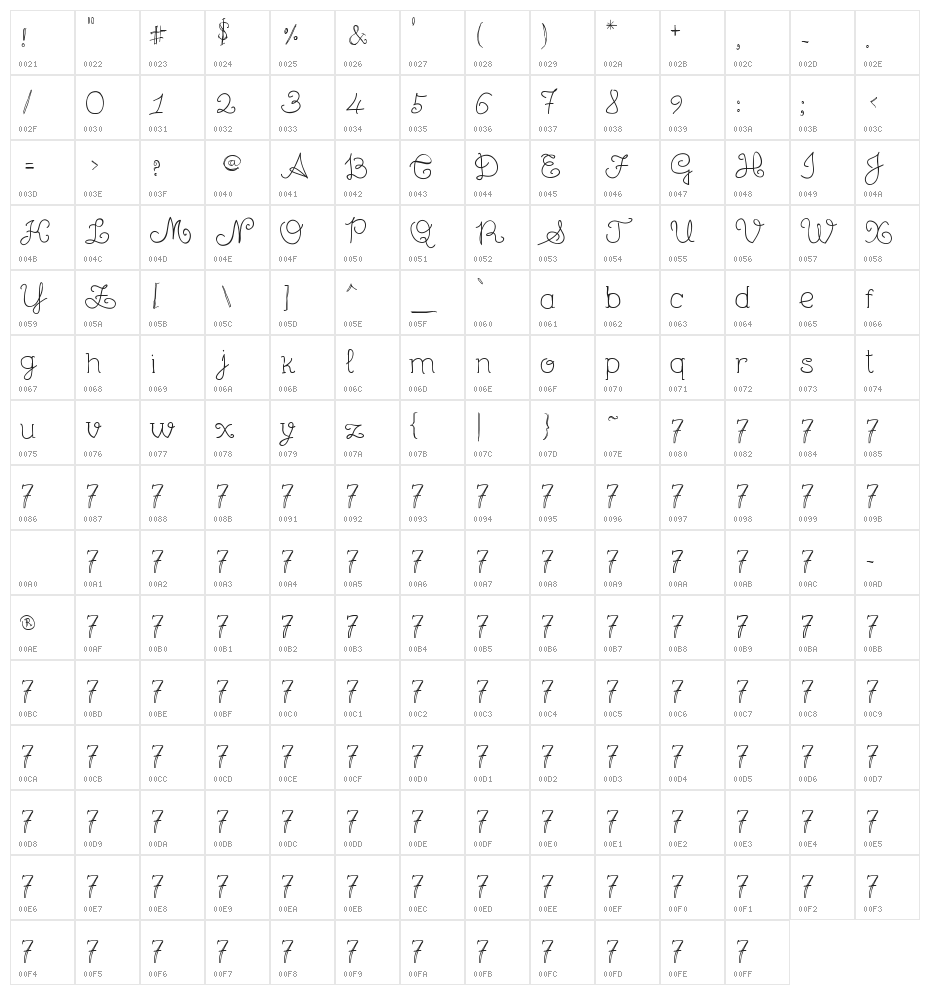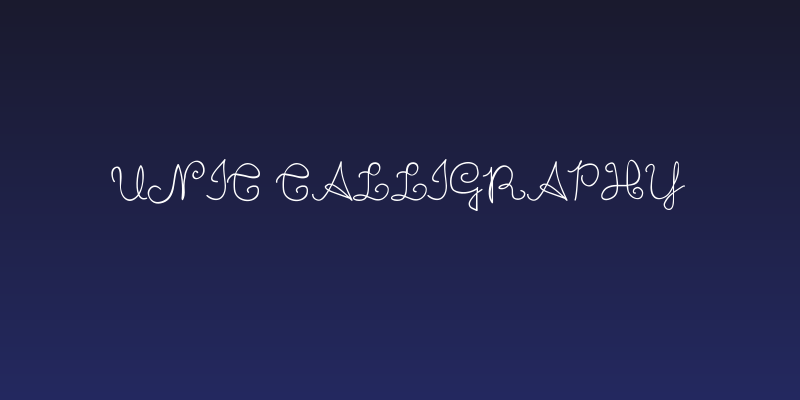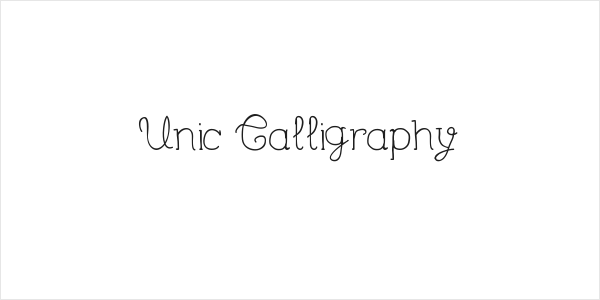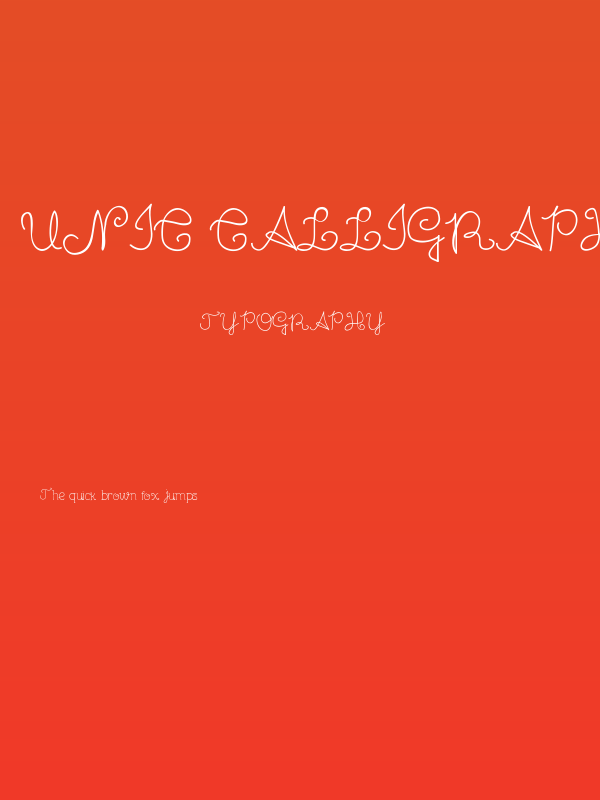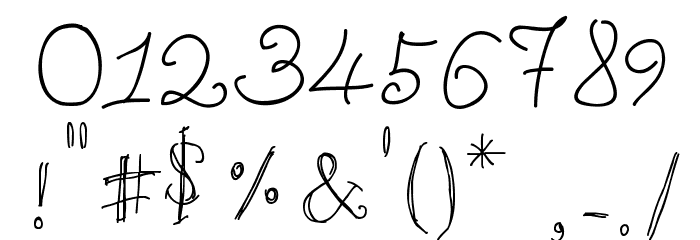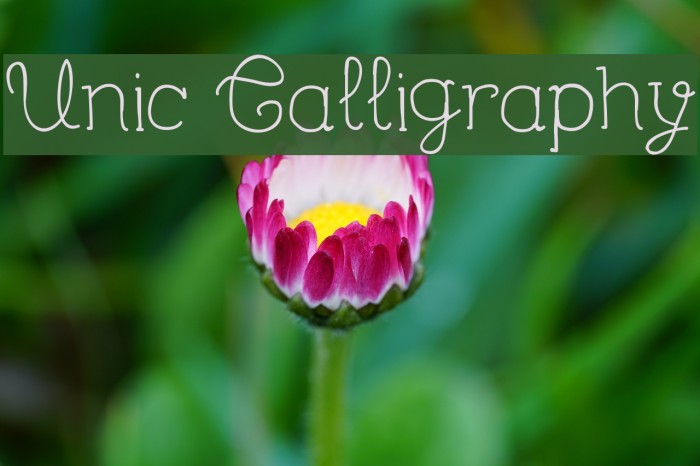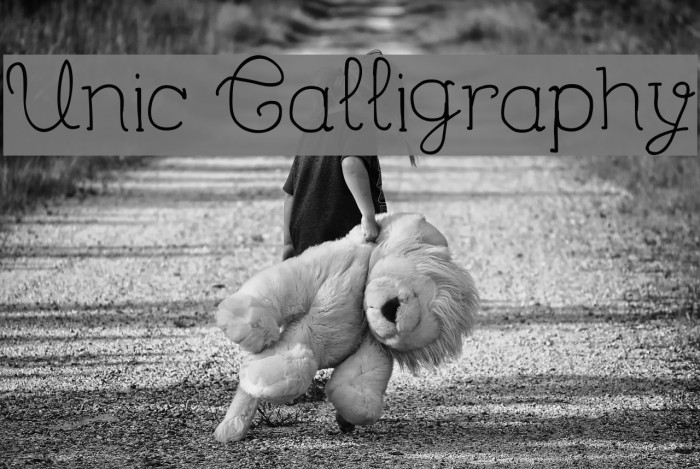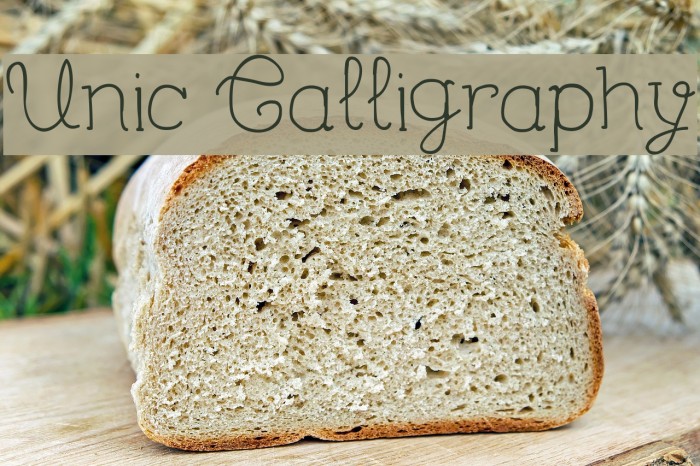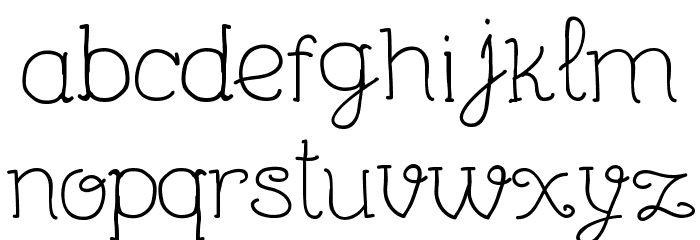
Unic Calligraphy Font
Unic Calligraphy Description
This font exhibits a whimsical and elegant calligraphic style, characterized by its flowing, interconnected strokes and decorative flourishes. The uppercase letters feature intricate loops and swirls, giving them a playful yet sophisticated appearance. The lowercase letters maintain a consistent, smooth flow, with some characters extending slightly below the baseline, adding to the font's graceful aesthetic. The numerals are equally stylized, with curves and loops that mirror the letterforms. Special characters are designed with the same attention to detail, ensuring a cohesive look across all glyphs. This font's unique style makes it ideal for creative and artistic projects where a touch of elegance and personality is desired.
| Proposed Projects | Ideal for wedding invitations, greeting cards, branding, and artistic projects requiring a personal touch. |